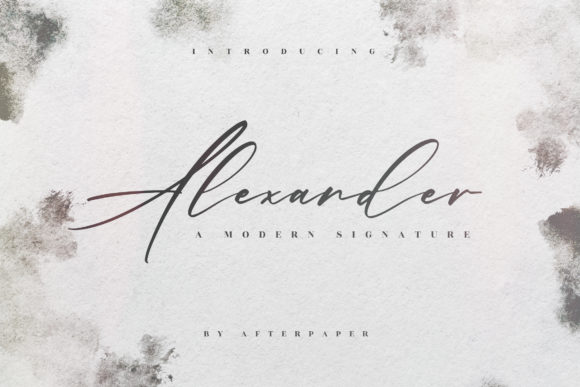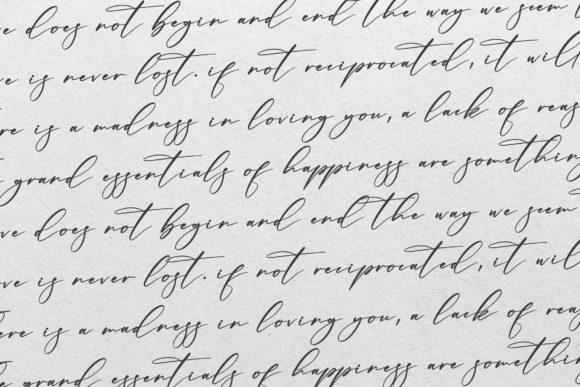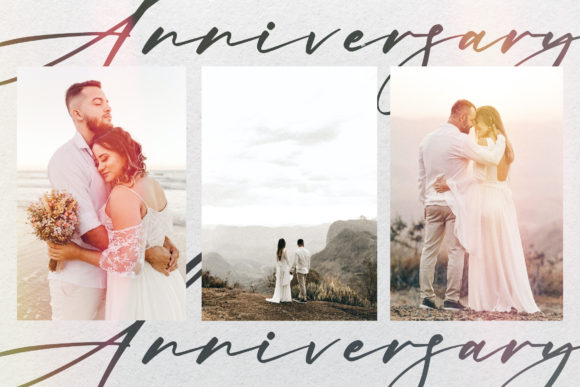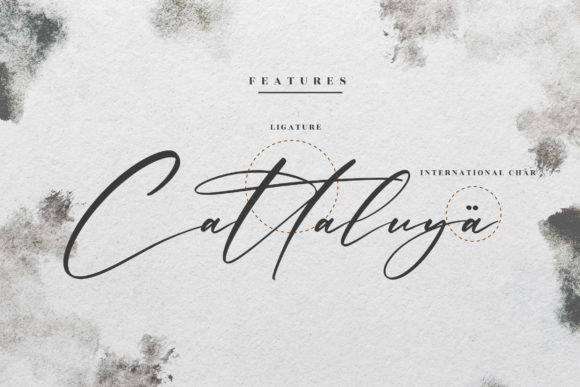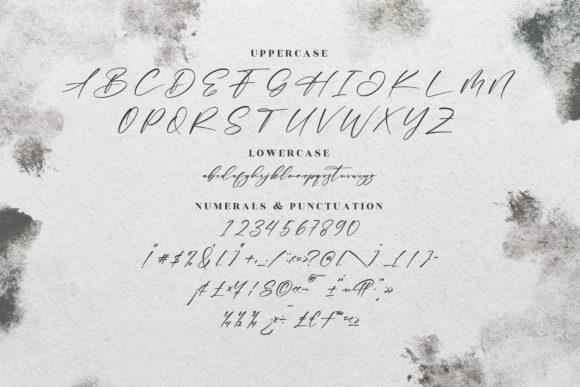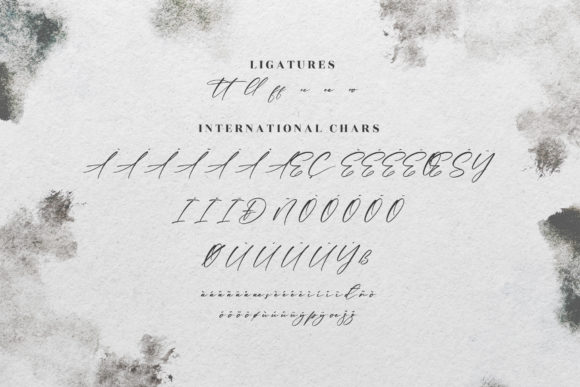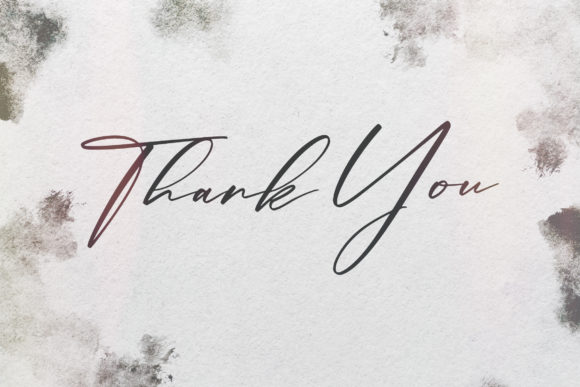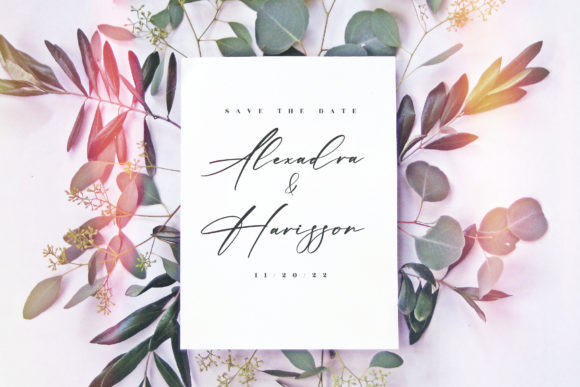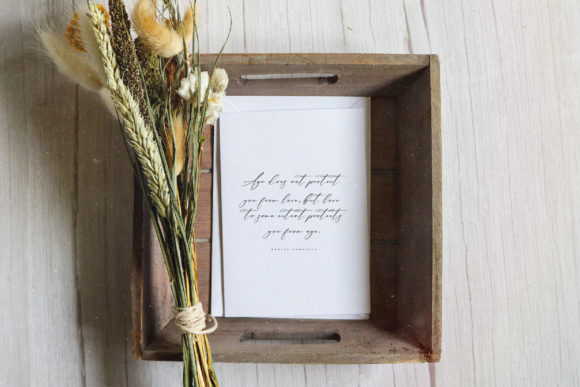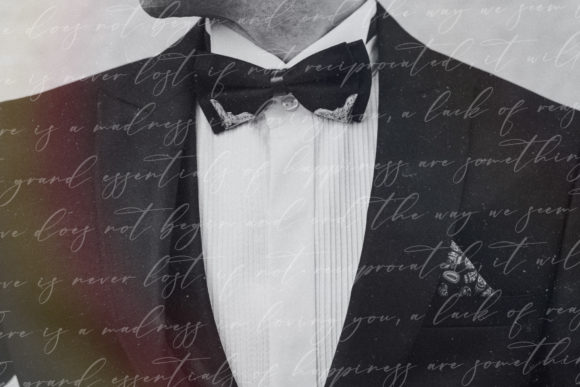
Alexander Font
About Alexander Font
Alexander is a Modern Signature Script Font, suitable for any projects such as logos, branding projects, homeware designs, product packaging, mugs, quotes, posters, shopping bags, t-shirts, book covers, name cards, invitation cards, greeting cards, labels, photography, watermark, special events, and all your other lovely projects that need a beautiful script taste.